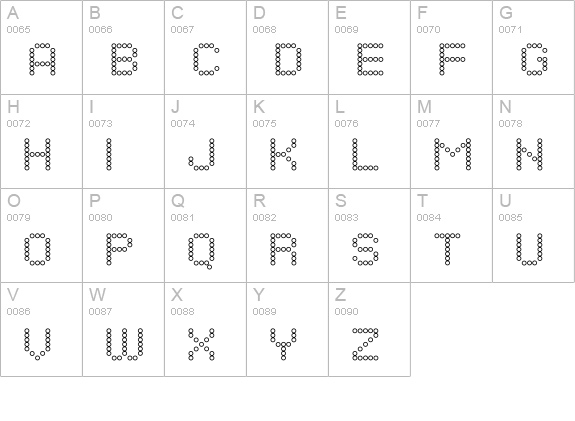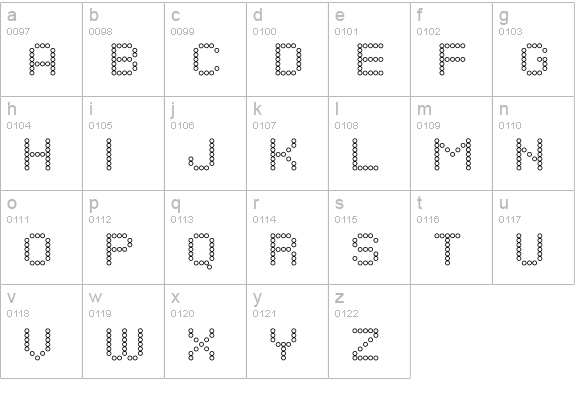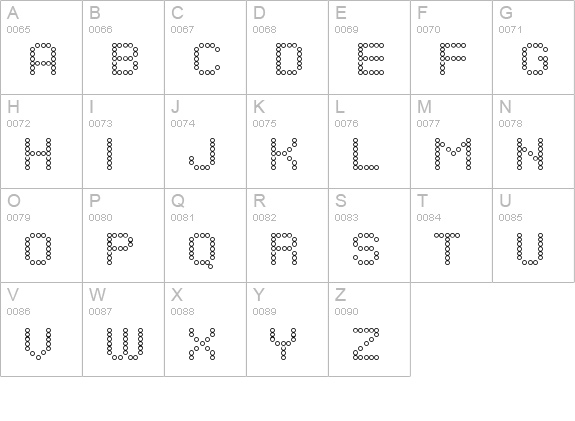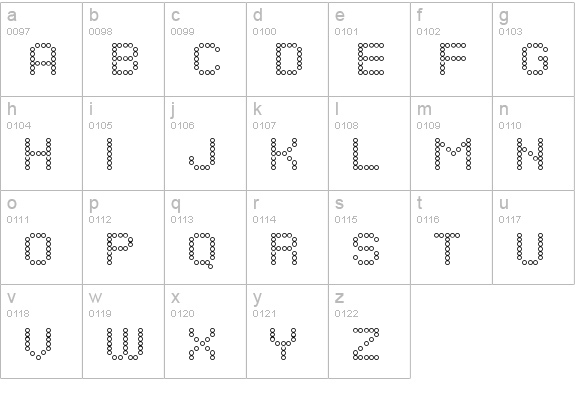
Dots All For Now Open JL font is a unique and eye-catching typeface that features a playful design with dots incorporated into each character. This font is perfect for adding a fun and modern touch to your projects, whether it's for branding, marketing materials, or creative designs. With its bold and distinct look, Dots All For Now Open JL font is sure to make a statement and grab attention. The best part about this font is that it is completely free to download at FontsMarket.com. You can easily access this font and use it in your projects without any cost. Whether you're a designer, business owner, or hobbyist, Dots All For Now Open JL font is a great choice for adding a touch of personality and creativity to your work. Don't miss out on this fantastic free font and elevate your designs today!